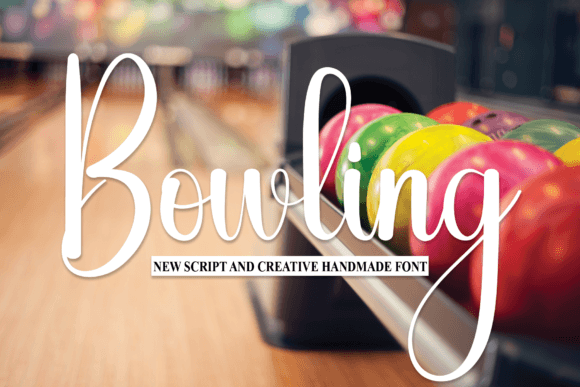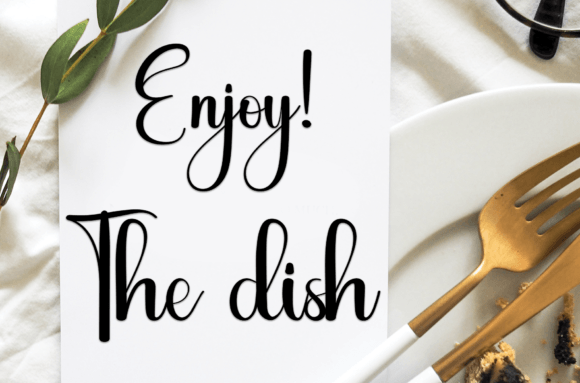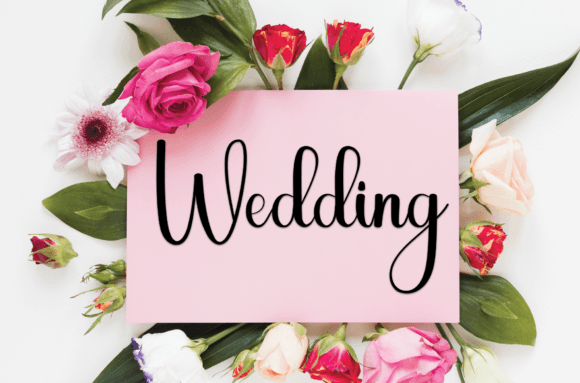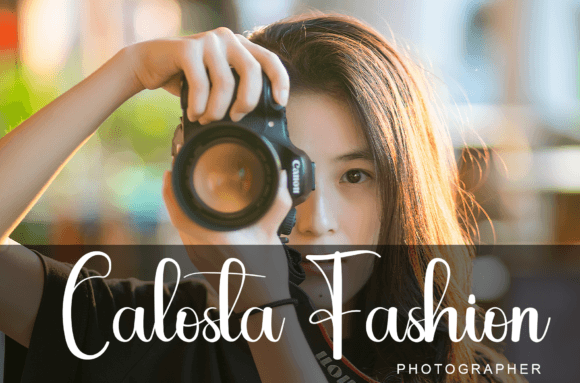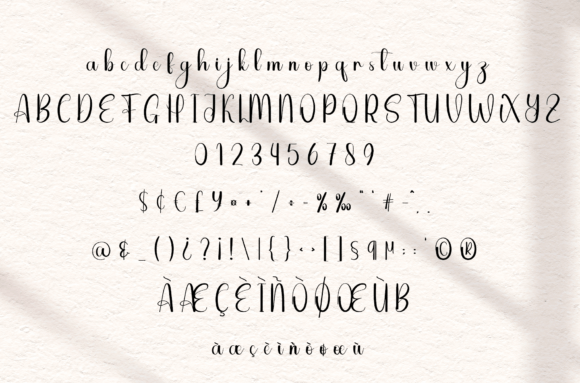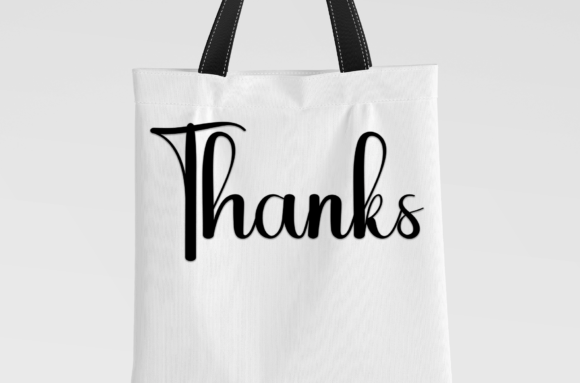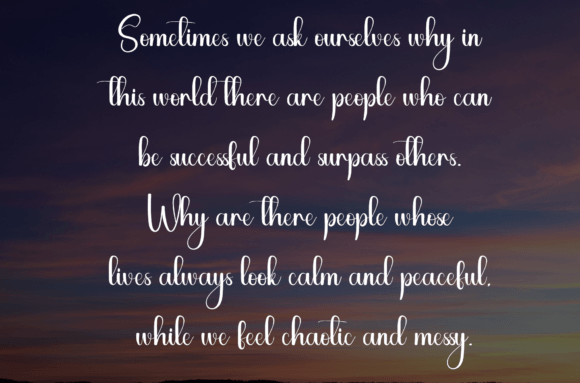
Bowling Font
About Bowling Font
Bowling Font is a sweet and friendly handwritten typeface that brings a relaxed, joyful feel to any project. With its smooth curves and easygoing style, it feels warm and personal. Whether you’re designing wedding invitations, greeting cards, or playful social media graphics, this font adds a touch of natural charm.
A Warm and Playful Handwritten Style
Every letter in Bowling Font feels hand-drawn, adding a personal touch to your text. The clean lines and soft flow create an approachable, welcoming look. This style is perfect when you want your words to feel sincere and heartfelt.
Bowling Font has a friendly energy that makes your message stand out. Even in a crowded design, this typeface feels fresh and engaging.
Perfect for Weddings and Special Events
Bowling Font shines in wedding designs and celebration projects. Its relaxed script style feels both elegant and inviting. Use it to create:
• Wedding Invitations: Share your love story in a warm, handwritten style.
• Save-the-Date Cards: Announce your plans with sweet simplicity.
• Thank You Cards: Express gratitude with a personal touch.
• Party Invitations: Make every event feel memorable and joyful.
With Bowling Font, every detail feels authentic and charming.
Ideal for Branding and Small Business
This font is also a wonderful choice for brands that want to feel approachable and modern. Bowling Font works beautifully for:
• Logos: Give your brand a friendly, handcrafted look.
• Product Packaging: Add a relaxed feel to labels and tags.
• Social Media Posts: Share messages that feel personal and warm.
• Promotional Materials: Create flyers and banners that feel inviting.
Its natural flow blends easily with a wide range of design styles.
Easy to Use and Highly Versatile
The clear, balanced letters are easy to read at any size, from tiny captions to bold headlines. Whether you design for print or digital, this font keeps its charming personality intact.
Bring Heartfelt Style to Your Projects
Bowling Font is all about joy, warmth, and genuine connection. It adds character and playfulness to every word you write. From wedding stationery to business branding, this font helps you share your message in a way that feels natural and true to you.
If you want your designs to feel sweet and relaxed, Bowling Font is the perfect choice. Let your creativity shine and watch your projects come to life with this delightful handwritten style.